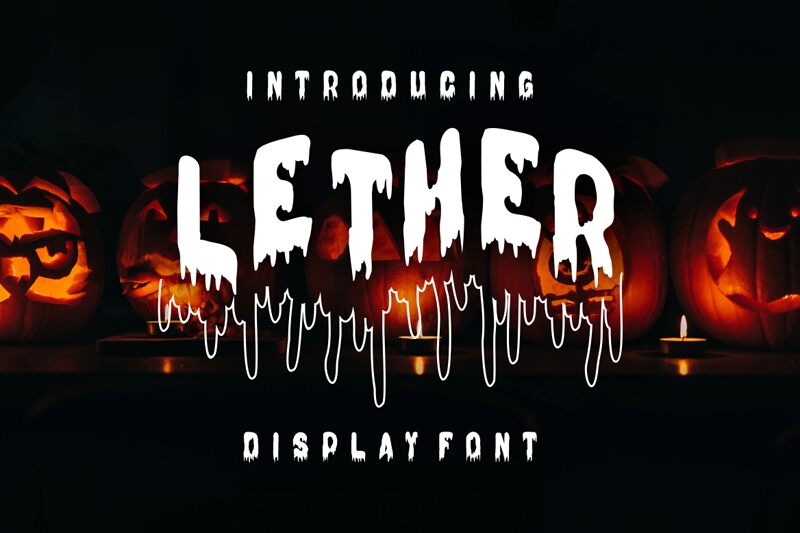
Lether font, designed by Gilang Ternadho, presents an exhilarating blend of boldness and a chilling aesthetic. Its condensed structure enhances its striking appearance, making each character appear tightly packed yet brimming with personality. The terrifying theme is echoed in the jagged edges and irregular shapes that evoke a sense of unease, brilliantly suited for capturing attention.
Visually commanding yet artfully crafted, Lether shines in design contexts such as horror-themed posters, captivating titles for dark tales, or any project aiming to provoke thought and stir emotion. This display font's unique characteristics make it an ideal choice for conveying intensity and drama without overwhelming the viewer. Perfect for graphic designers looking to infuse their work with a haunting flair!